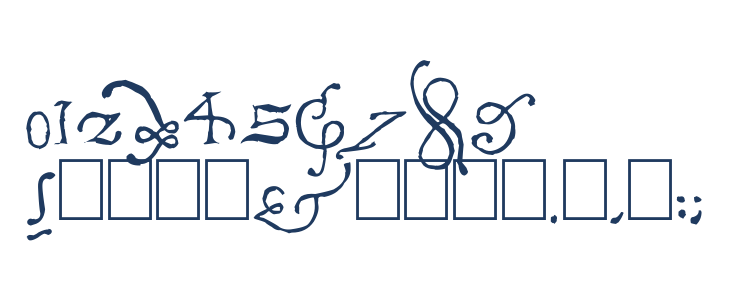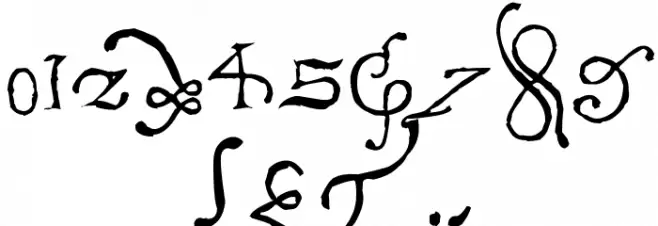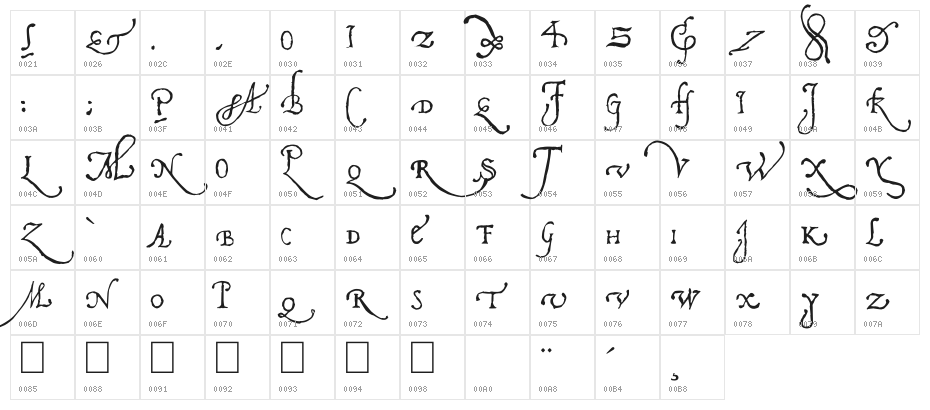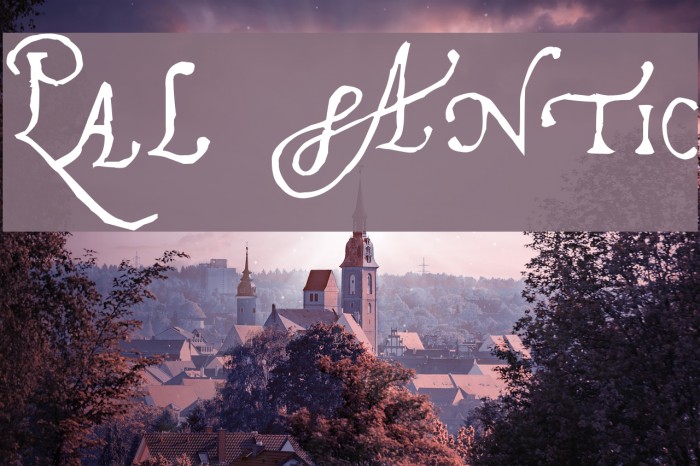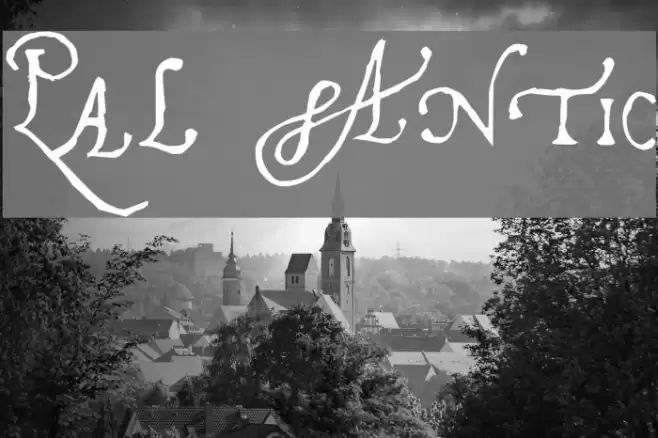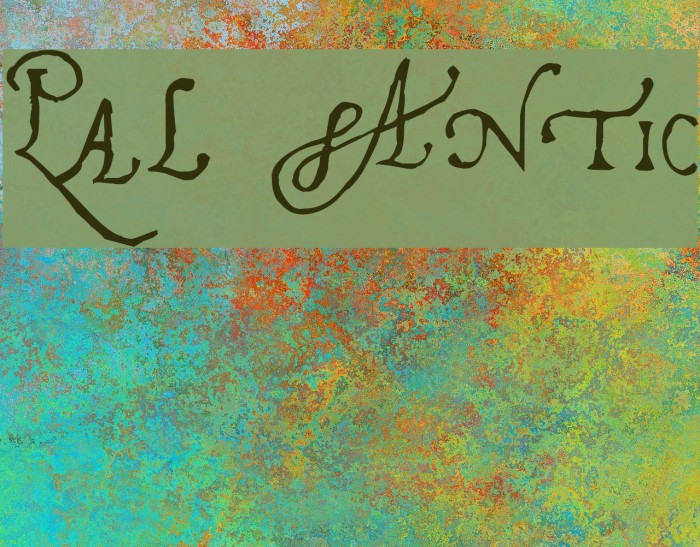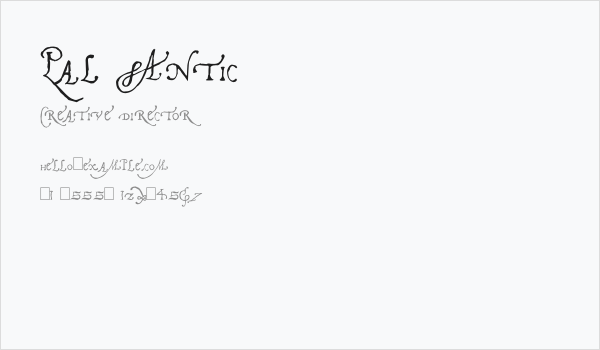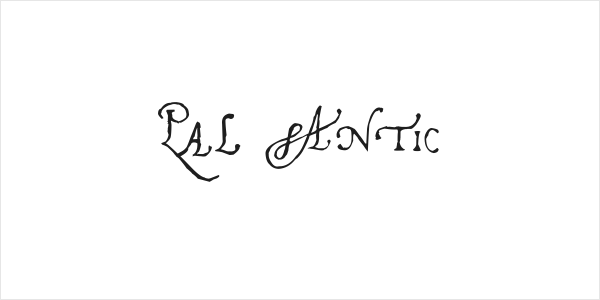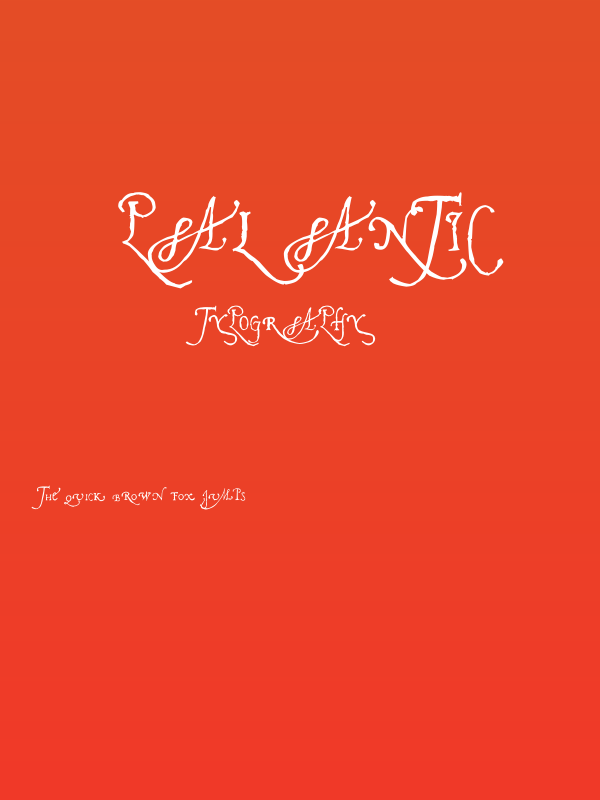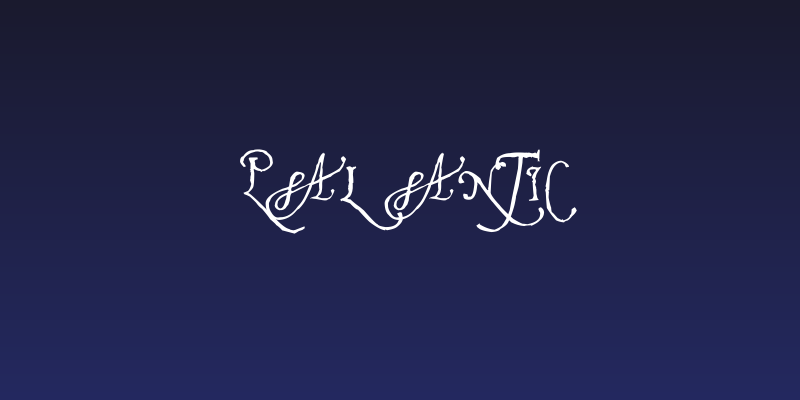
Pal Antic Font
Pal Antic Description
This font exudes a vintage and decorative flair, characterized by its ornate and flowing letterforms. The uppercase letters are particularly elaborate, with intricate loops and swirls that give them a calligraphic appearance. The lowercase letters maintain a similar style, though they are slightly more restrained, allowing for better readability. The numbers and special characters continue the decorative theme, with unique and artistic designs that complement the overall aesthetic. The font's high contrast between thick and thin strokes adds to its dramatic and elegant look, making it ideal for projects that require a touch of sophistication and historical charm.
| Proposed Projects | Ideal for wedding invitations, historical-themed posters, book covers, and branding that requires a classic and elegant touch. |